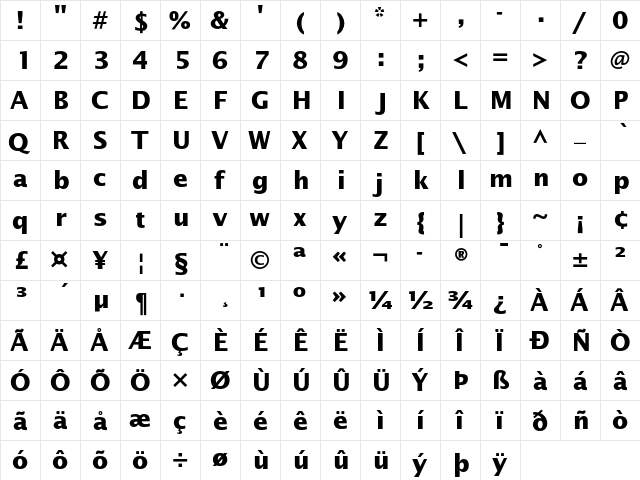
Lucida Sans Bold
Design Context for Lucida Sans Typeface
Lucida Sans is a composed and adaptable typeface that performs quietly and consistently across a wide range of design contexts. The heavy weight commands attention and anchors typographic hierarchies.
Pro Tip: Pair Lucida Sans with a font of contrasting weight or personality to build a more expressive typographic hierarchy.